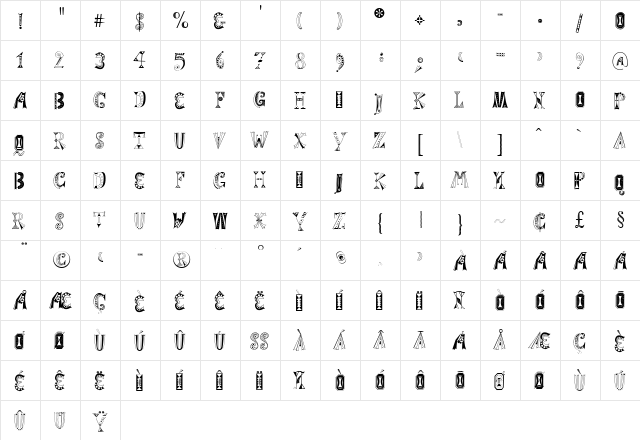
Tokay Medium Font Preview
Tokay Medium
| Foundry | Copr. M. Klein, frei nach Schriftideen von Imre Reiner | - - |
Design Context for Tokay Typeface
Tokay is a composed and adaptable typeface that performs quietly and consistently across a wide range of design contexts.